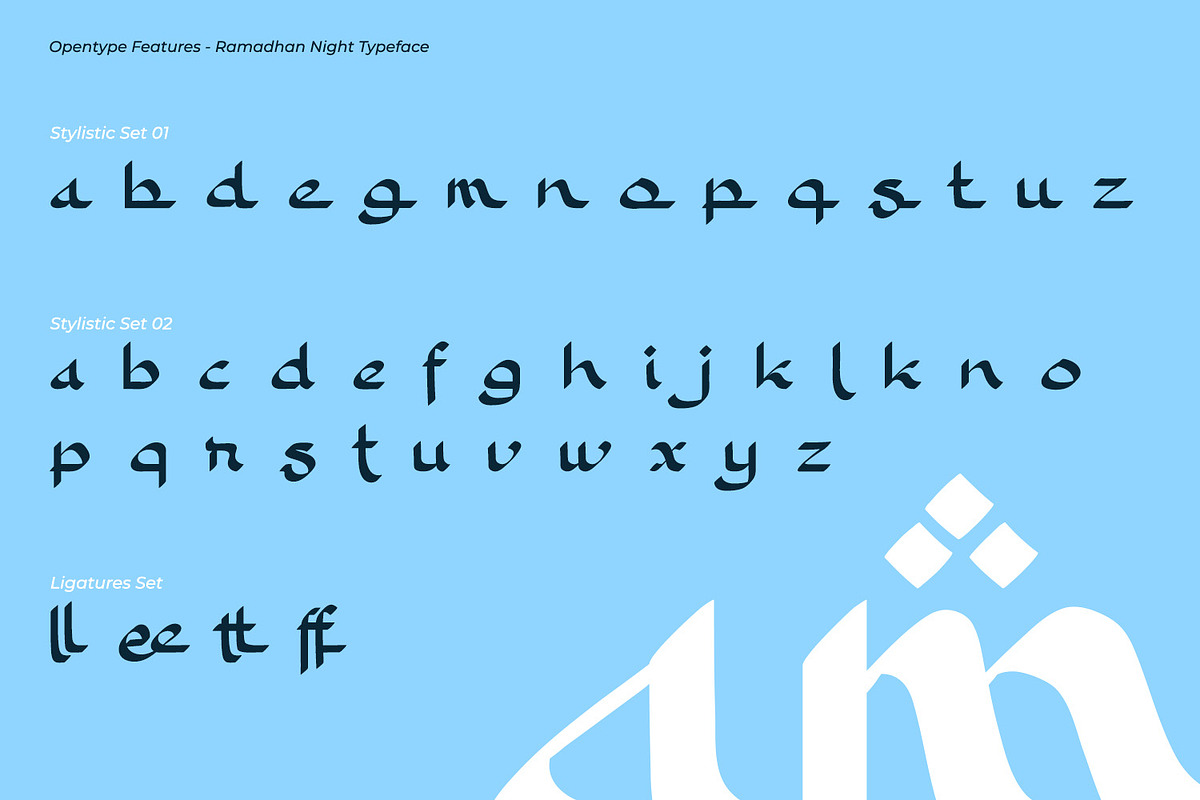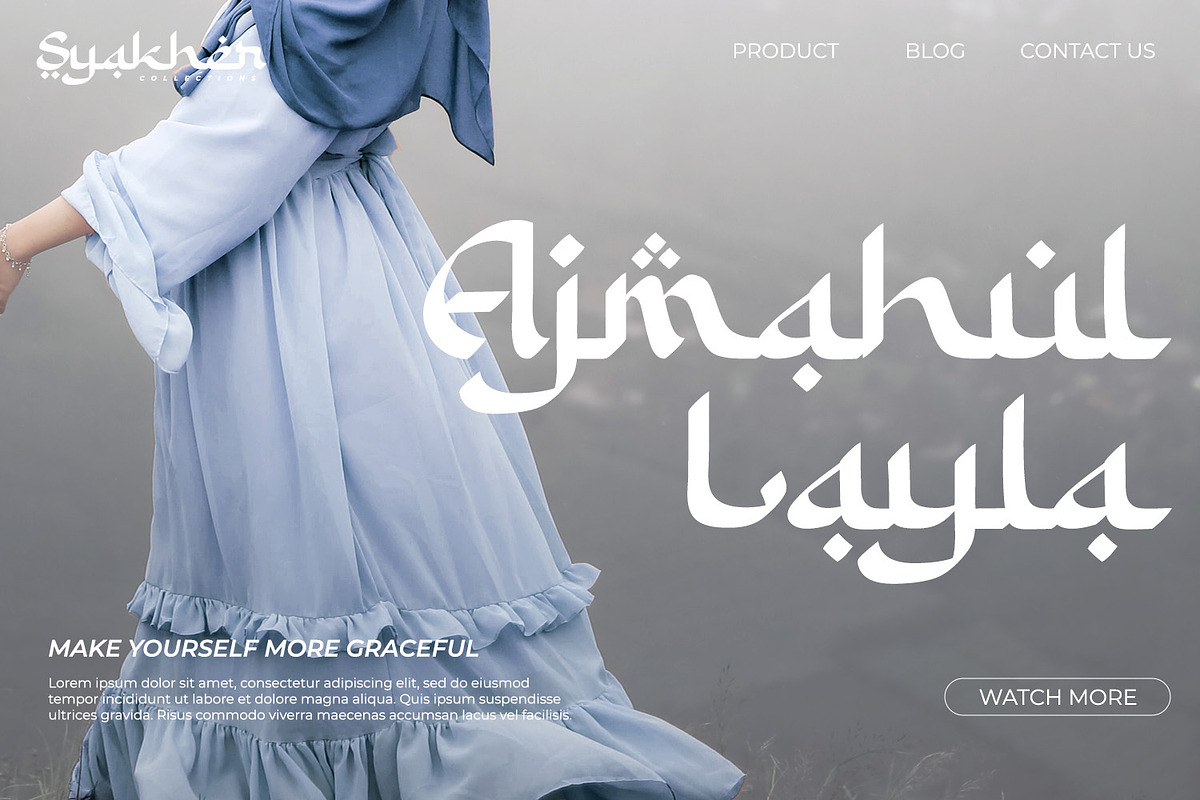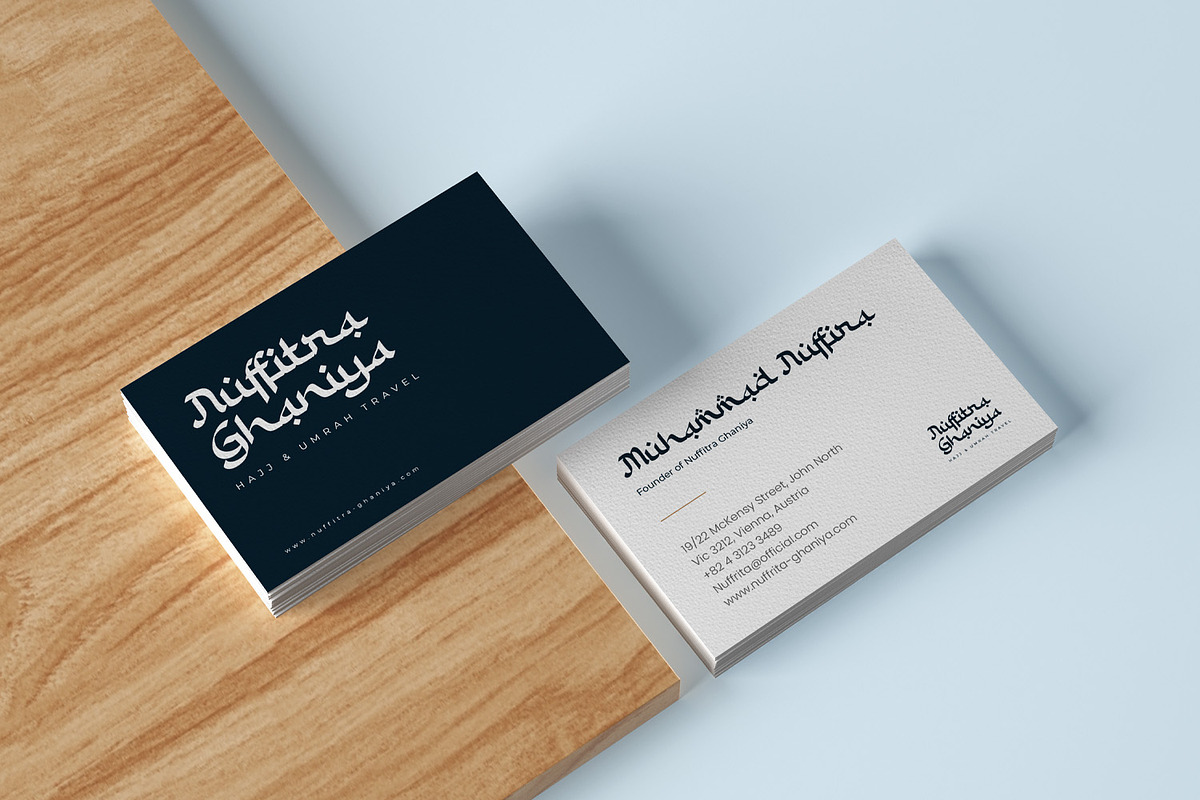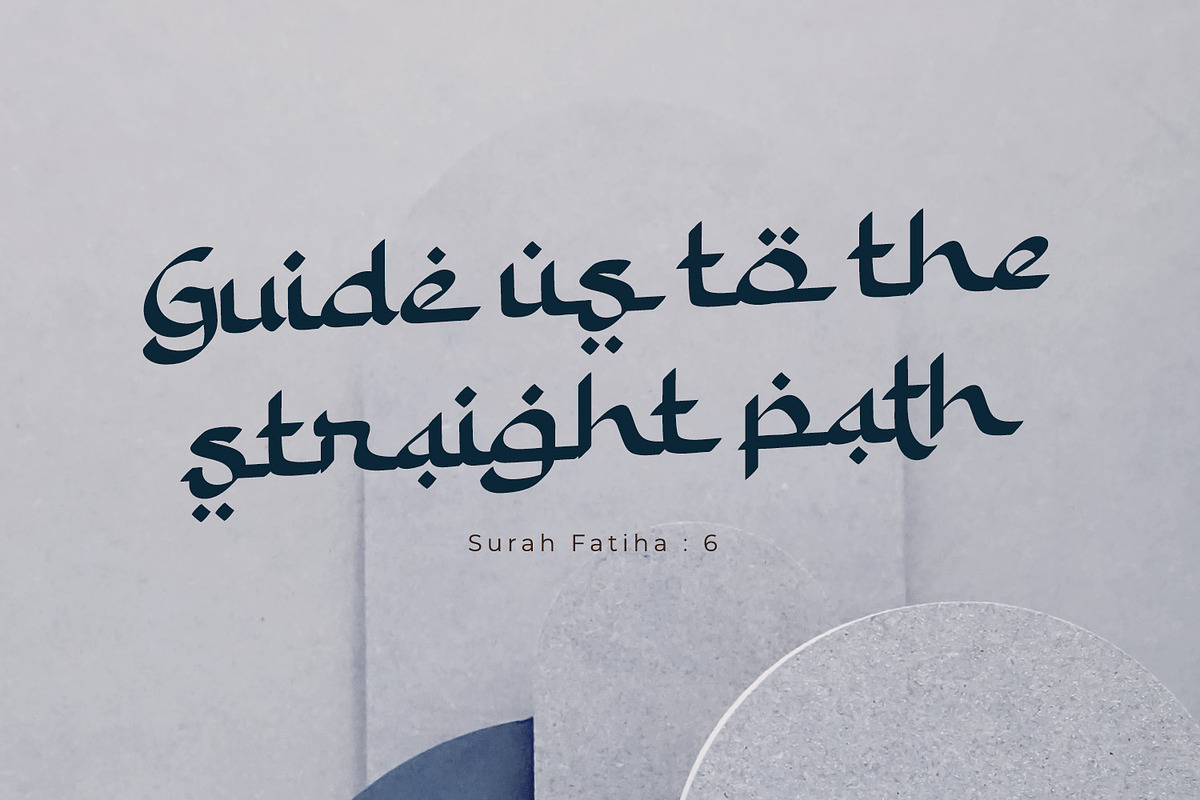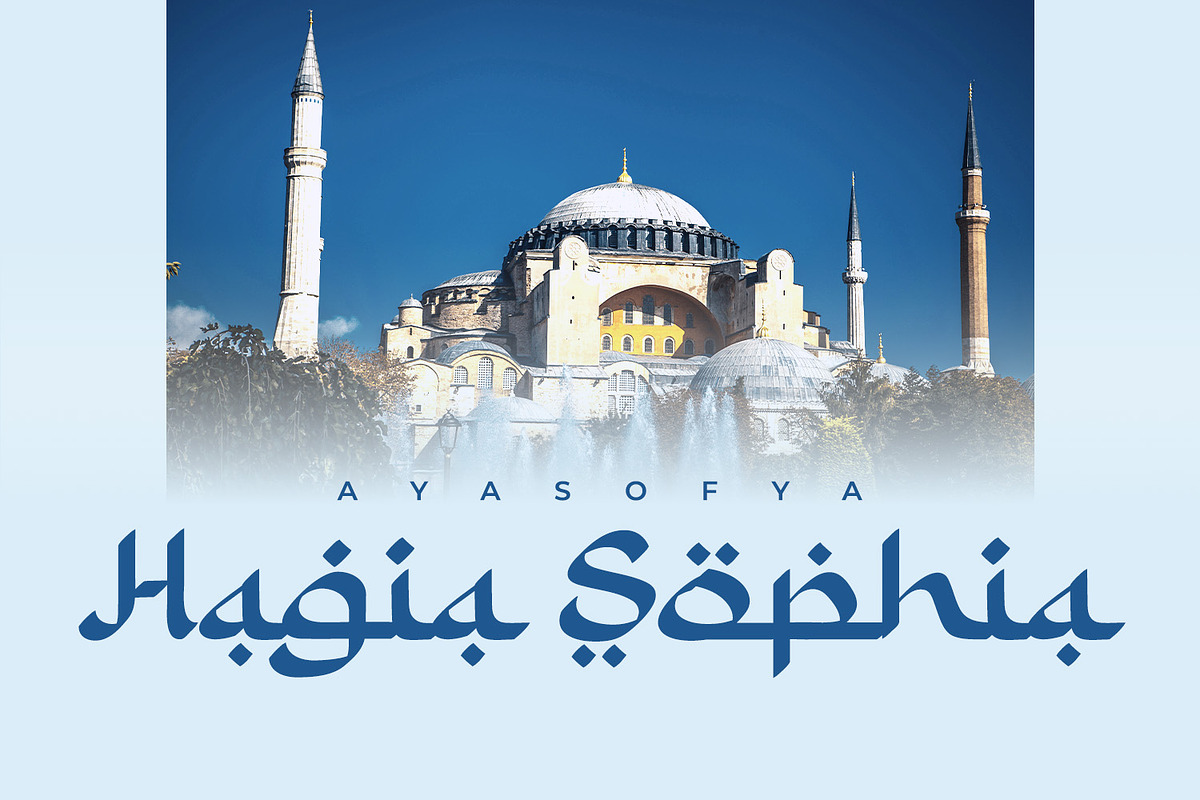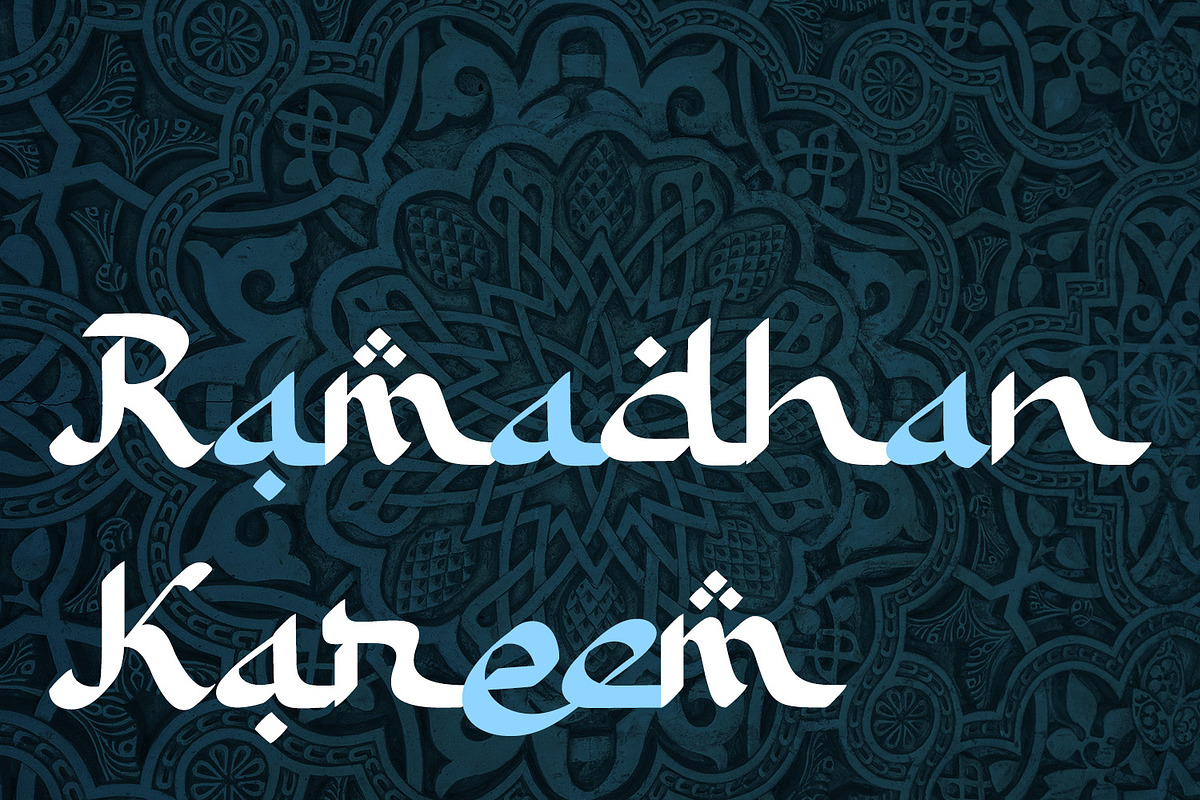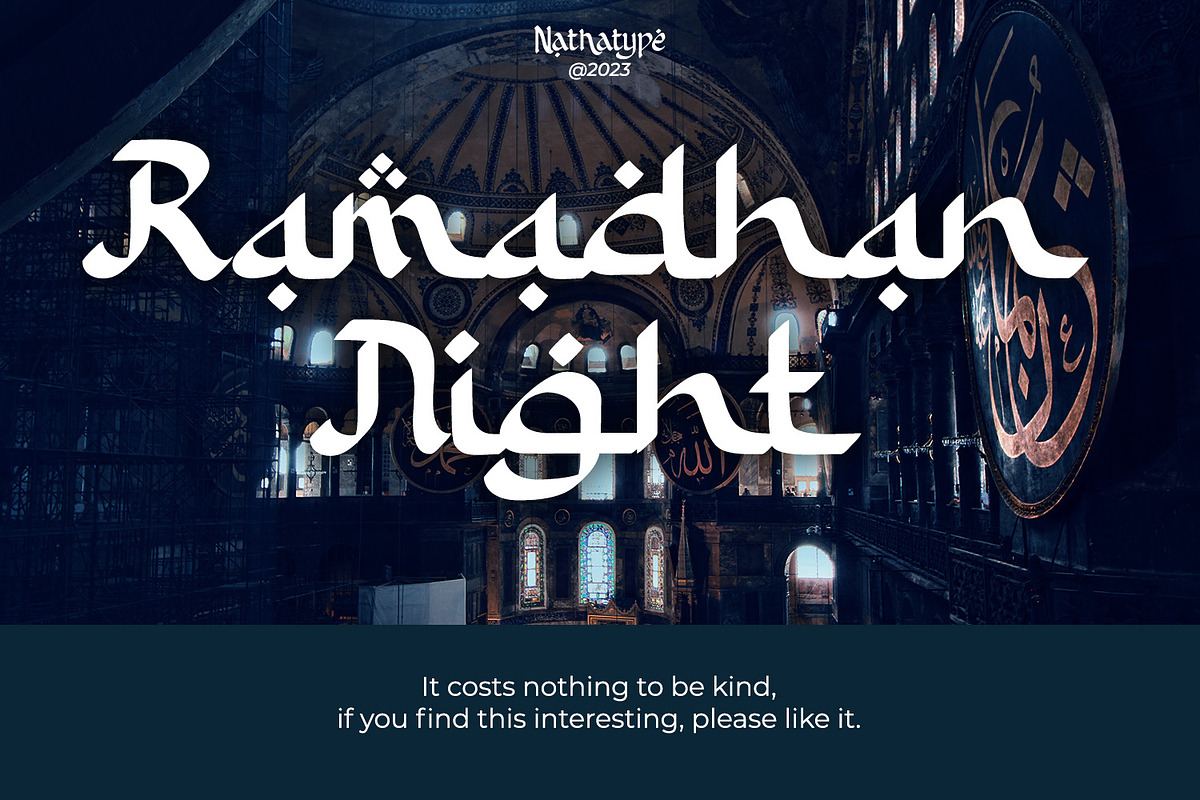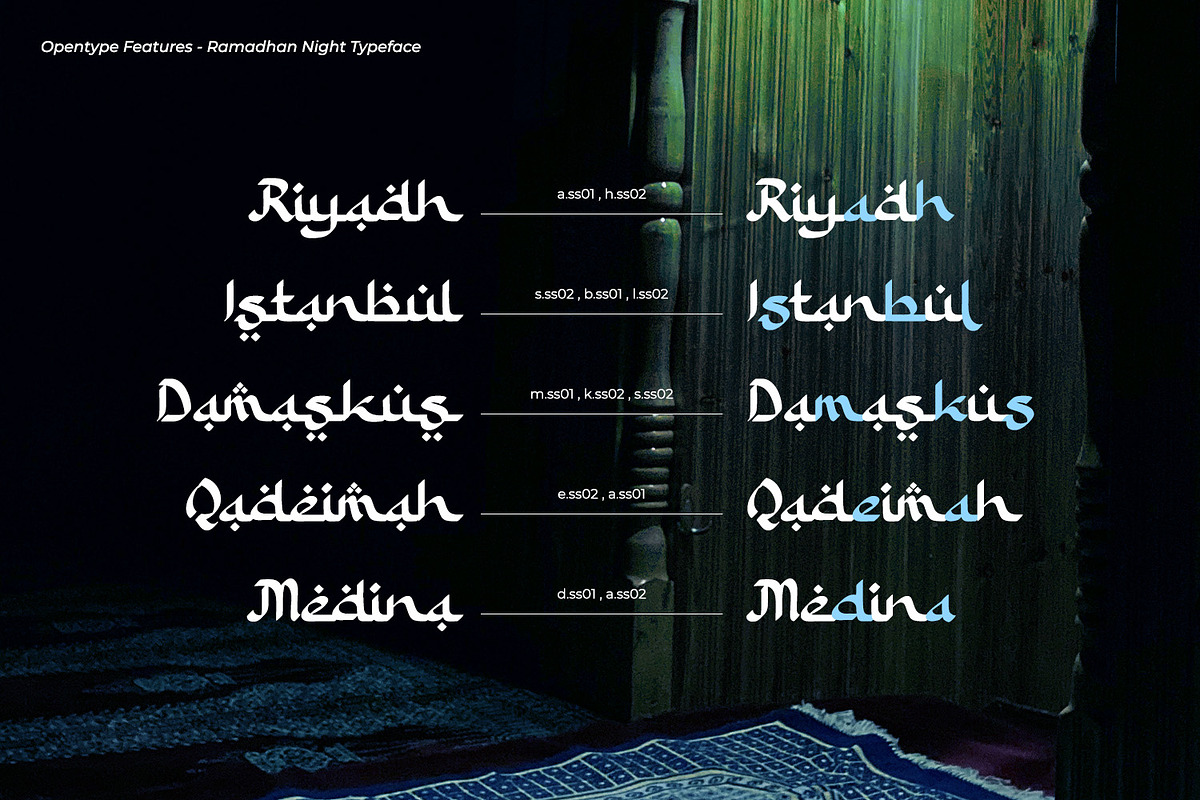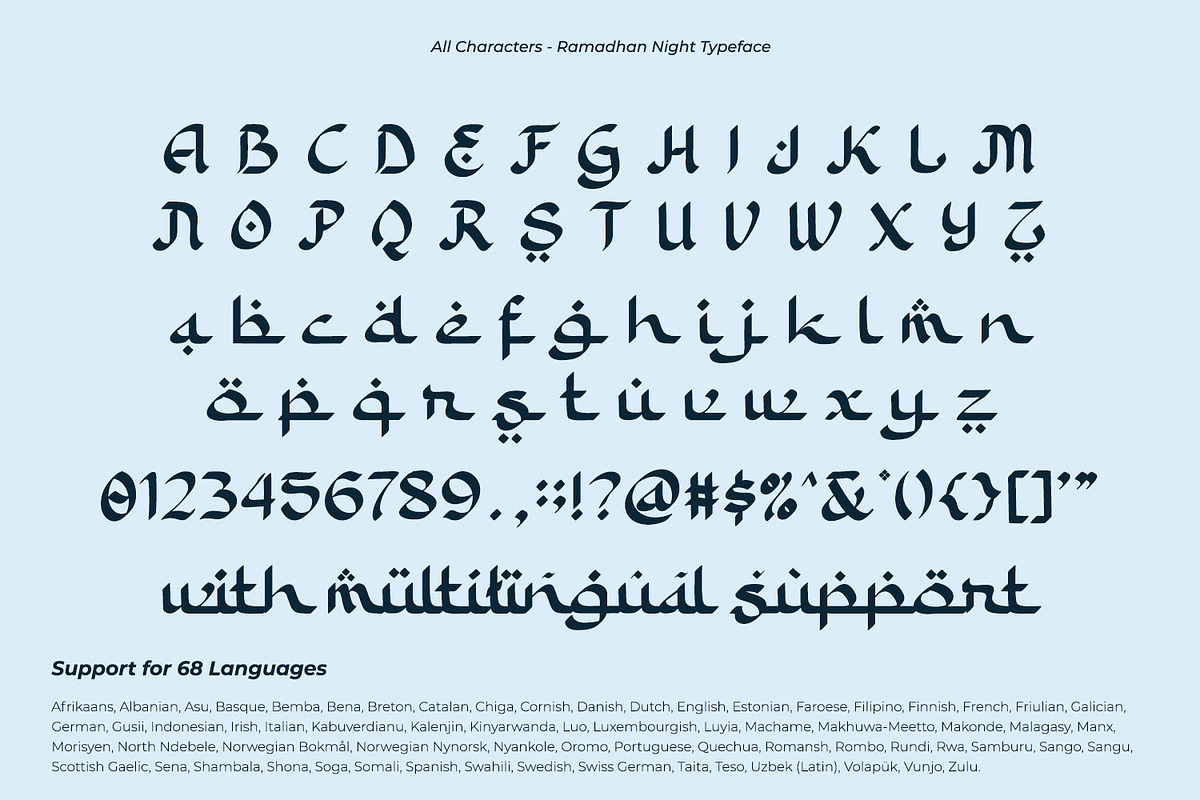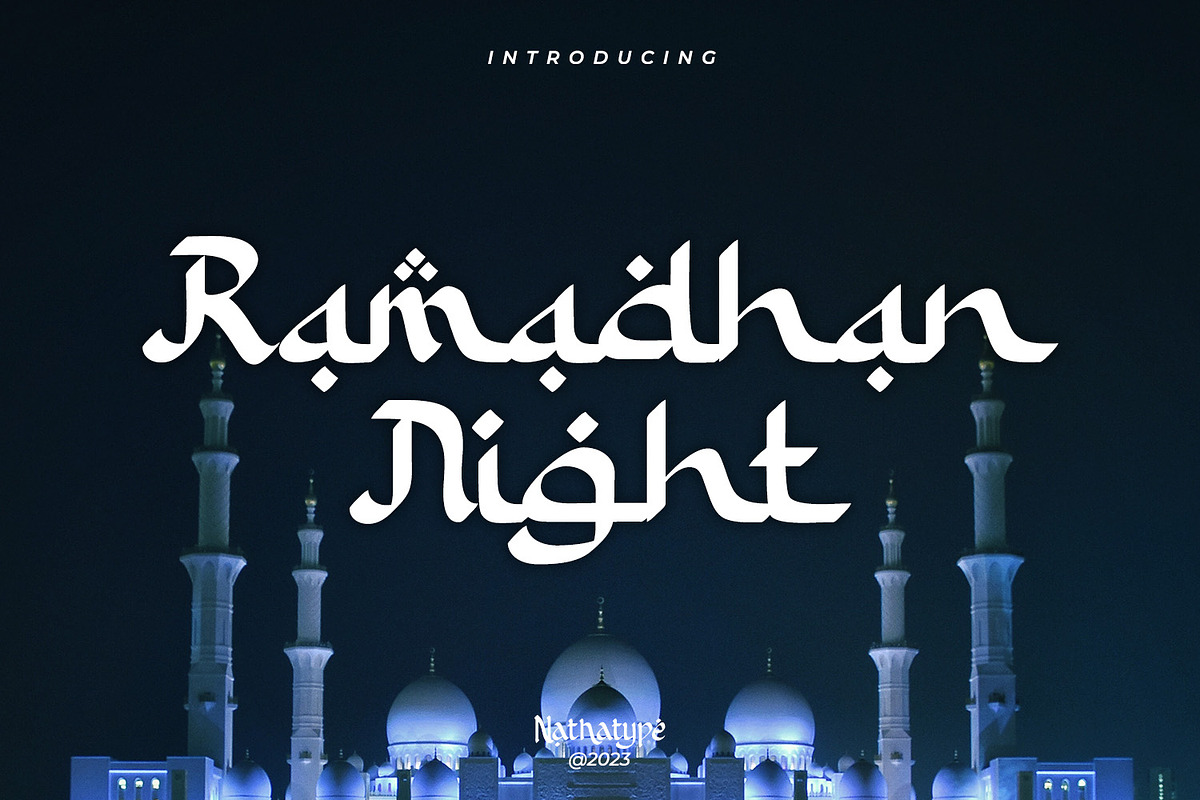
Ramadhan Night
Introducing Ramadhan Night, a captivating display font that effortlessly captures the essence of Arabic letters. Ramadhan Night pays homage to the flowing beauty of Arabic script, where each letter gracefully connects to the next. It brings the charm of this age-old tradition to your designs. This font maintains low contrast between strokes and curves, ensuring clarity and easy reading in various contexts. In addition, enjoy the features here.
- Stylistic Sets
Ramadhan Night is highly versatile, making it suitable for various designs. It fits in headlines, logos, posters, flyers, branding materials, print media, editorial layouts, and many more designs. Find out more ways to use this font by taking a look at the font preview.